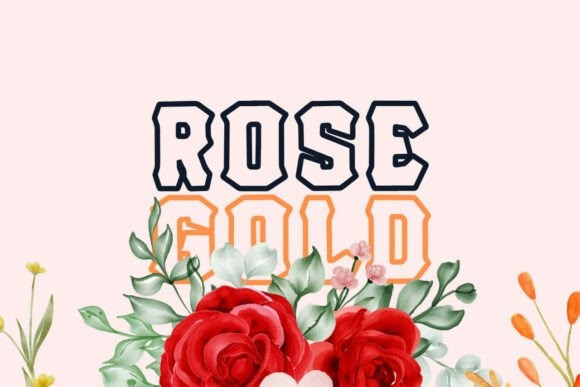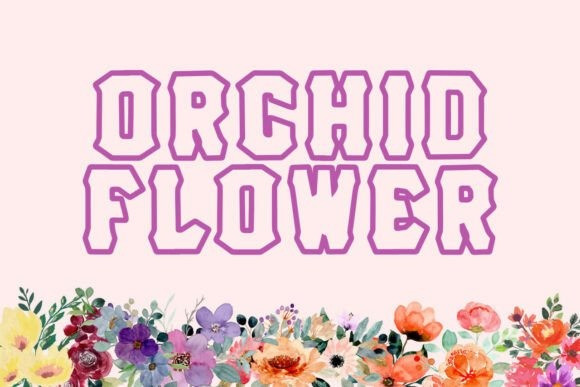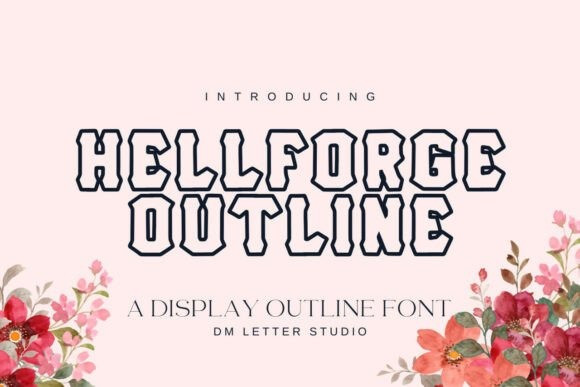
Hell Forge Outline Font
Hell Forge Outline Font brings steel-cut attitude with clean readability. Letters feel heavy yet airy because of the hollow build. Edges stay sharp, so titles hit hard on shirts, posters, patches, and thumbnails. Use it for gaming brands, biker merch, garage logos, metal gigs, and gritty labels. Moreover, this outline style loves glow, gradients, and chrome, so even quick mockups look finished.
Where Hell Forge Outline Font shines
Set short phrases, product names, or team initials. Then add inner shadows, neon rims, or brushed-metal textures for depth. Since spacing is tuned for headlines, you can build covers, banners, and decals in minutes. As a result, launches move faster across apparel, stickers, and social graphics. Plus, the open centers keep designs light on dark fabrics while still looking bold.
Fast setup, forged clarity
Design tips for outline display
Keep copy short and let the stroke thickness lead. Pair big Hell Forge Outline Font headlines with a neutral geometric sans for specs and pricing. Meanwhile, drop a subtle fill behind key words to boost impact on busy photos. Because the shapes are angular, rim light and outer glow add contrast on dark images. However, avoid long sentences in tiny spaces. Names, numbers, and punchy phrases work best.